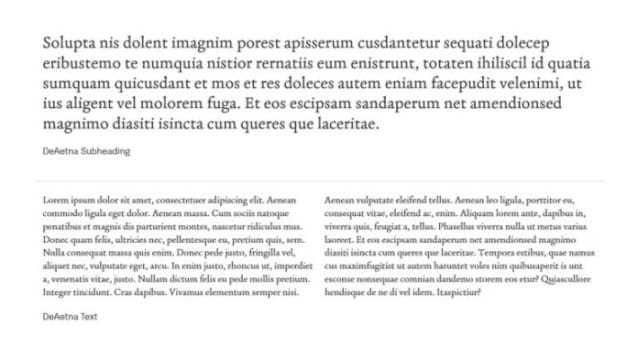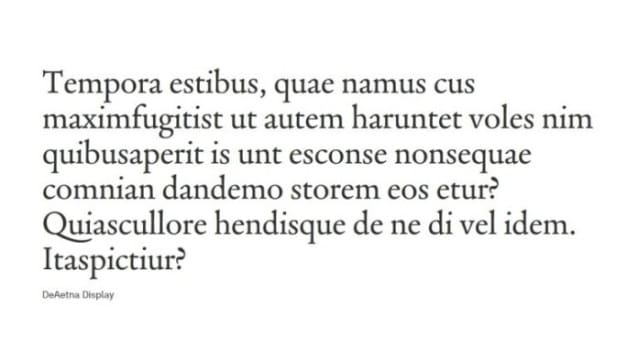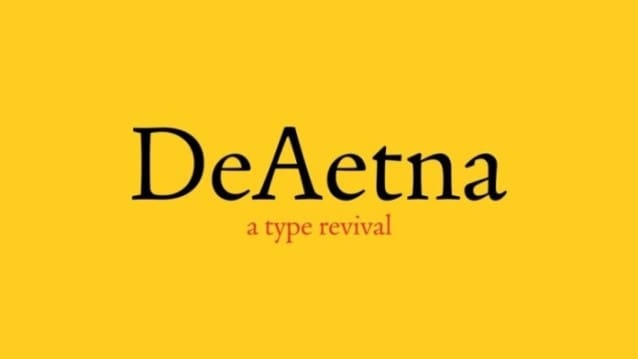
De Aetna Font
De Aetna Font is a free elegant serif font consisting of 4 weights that lend a distinctive elegance and liveliness to text paragraphs and display type. While the display sizes maintain a visual link to calligraphic roots, text sizes exhibit more typographic qualities.